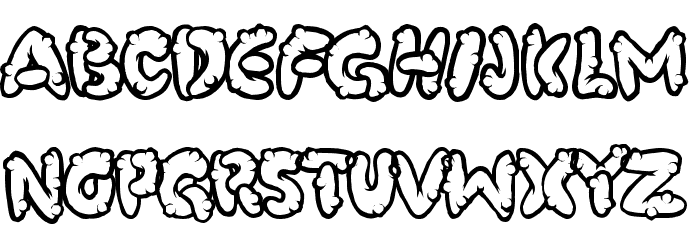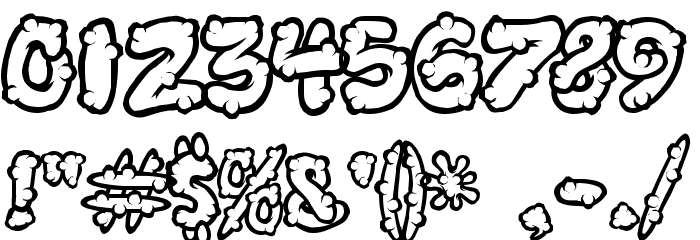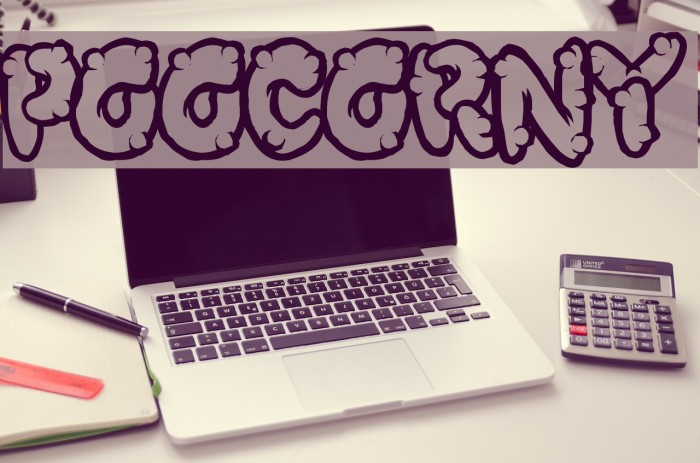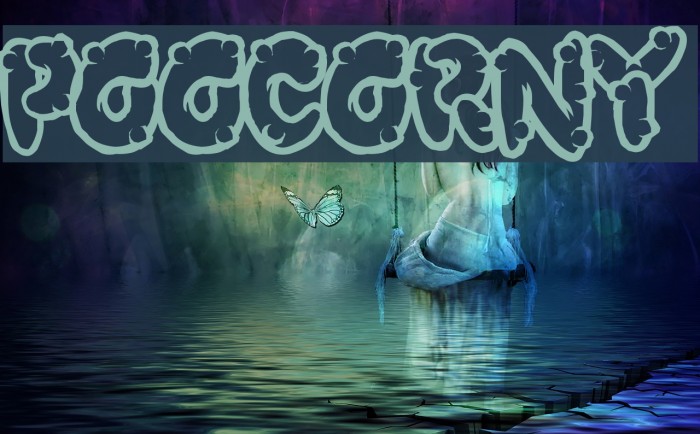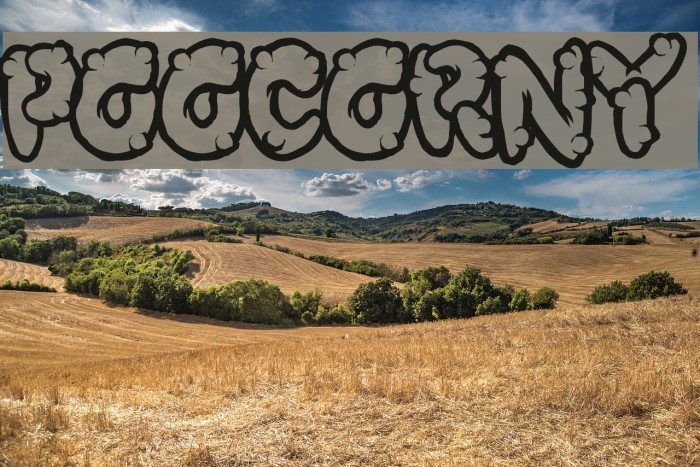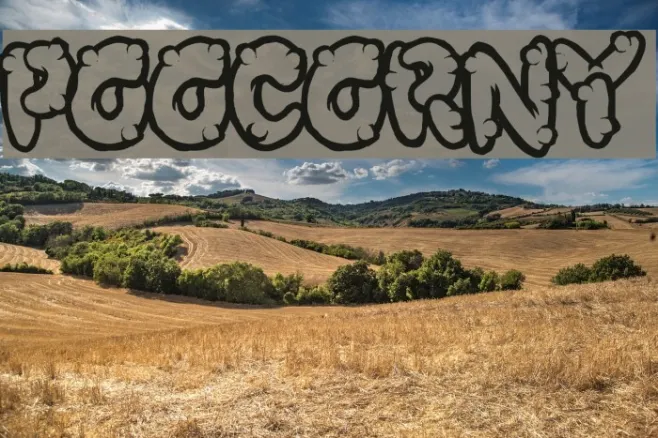
PooCorny Font
This playful and whimsical font features bold, rounded characters with a bubbly, cartoon-like appearance. Each letter is outlined with a thick black border, giving it a distinct and eye-catching look. The interior of the letters is filled with a white space that adds to the playful aesthetic. The font's unique style is reminiscent of comic book lettering, making it ideal for projects that require a fun and informal tone. The characters are evenly spaced, ensuring readability while maintaining their quirky charm. This font is perfect for children's books, playful branding, or any project that aims to convey a sense of fun and creativity.
A playful, cartoon-like font with bold, rounded characters and a bubbly appearance.
- Proposed Projects: Ideal for children's books, playful branding, comic strips, and creative posters.
- Overall Style: Playful, Whimsical